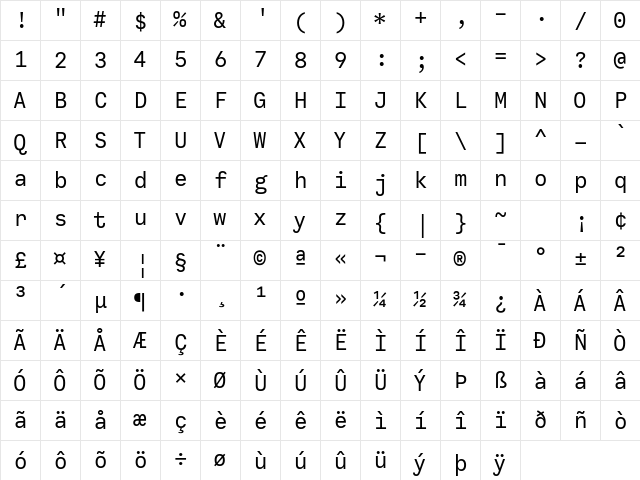
Calling Code Regular
Foundry: Dharma Type
Designer: Ryoichi Tsunekawa
Complete Calling Code Regular glyph index. Displaying only characters natively supported by Calling Code Regular font.
Design Context for Calling Code
Calling Code uses fixed-width spacing throughout, giving it the structured, systematic character associated with coding environments and technical documentation.
Pro Tip: Use Calling Code with slightly increased line-height for extended reading - fixed-width spacing can feel dense in longer passages without extra breathing room.
Who designed the Calling Code Regular font?